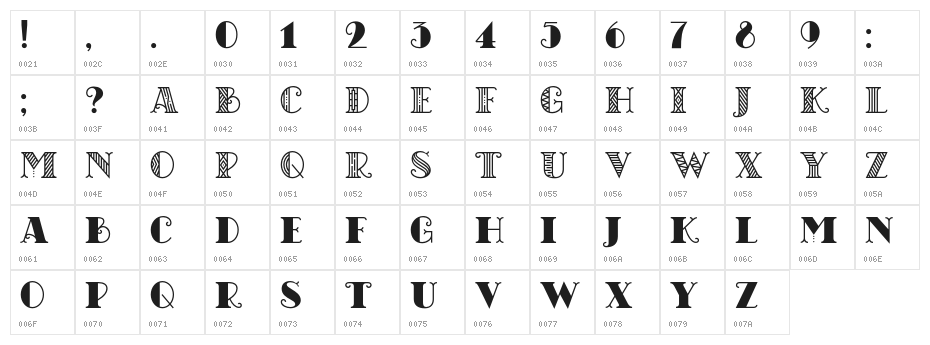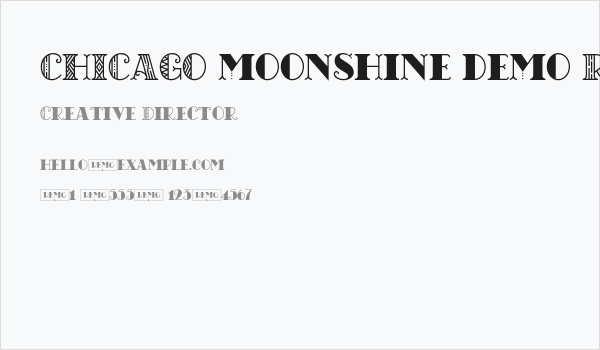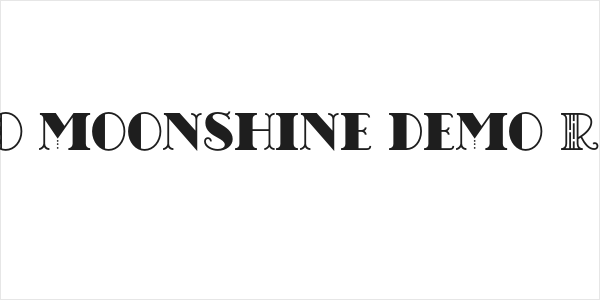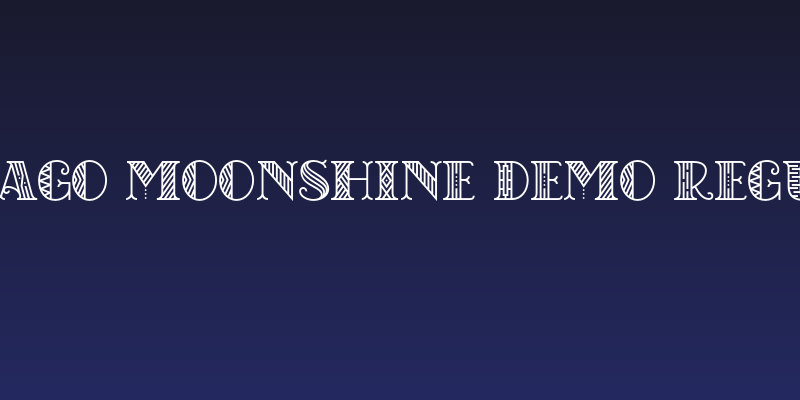
CHICAGO moonshine demo Regular Font
CHICAGO moonshine demo Regular Description
This font features a bold and decorative style with intricate patterns and unique detailing on each character. The uppercase letters are adorned with stripes and dots, giving them a playful yet sophisticated appearance. The numbers are bold and rounded, with some characters incorporating elegant swirls. The overall design is eye-catching, making it suitable for projects that require a strong visual impact. The font's decorative elements suggest a vintage or retro influence, while maintaining a modern edge.
| Proposed Projects | Ideal for branding, poster design, event invitations, and any project needing a striking, decorative typeface. |